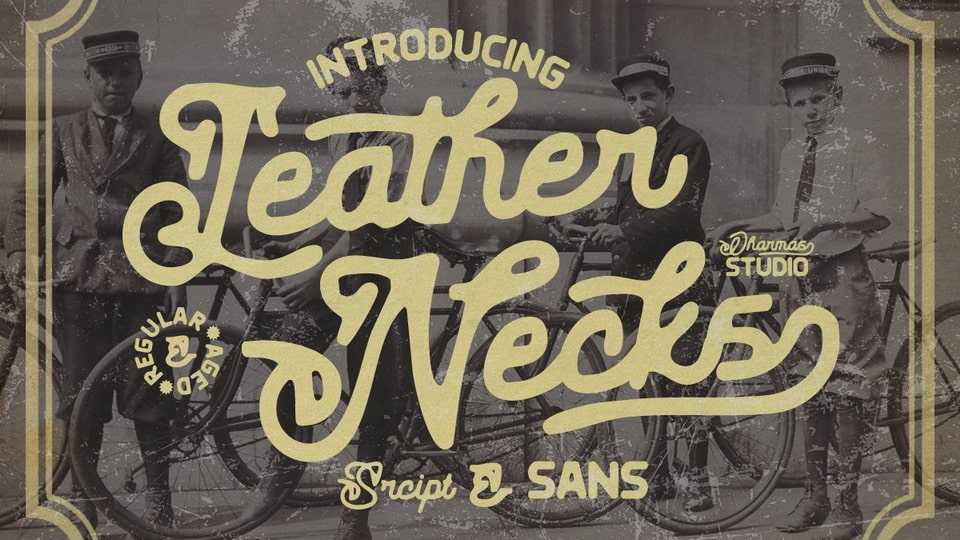
Leather Necks Script & Sans Fonts › Fontesk
Download Leather Neck font, a typeface born from the heart of traditional sign painting and American typography.